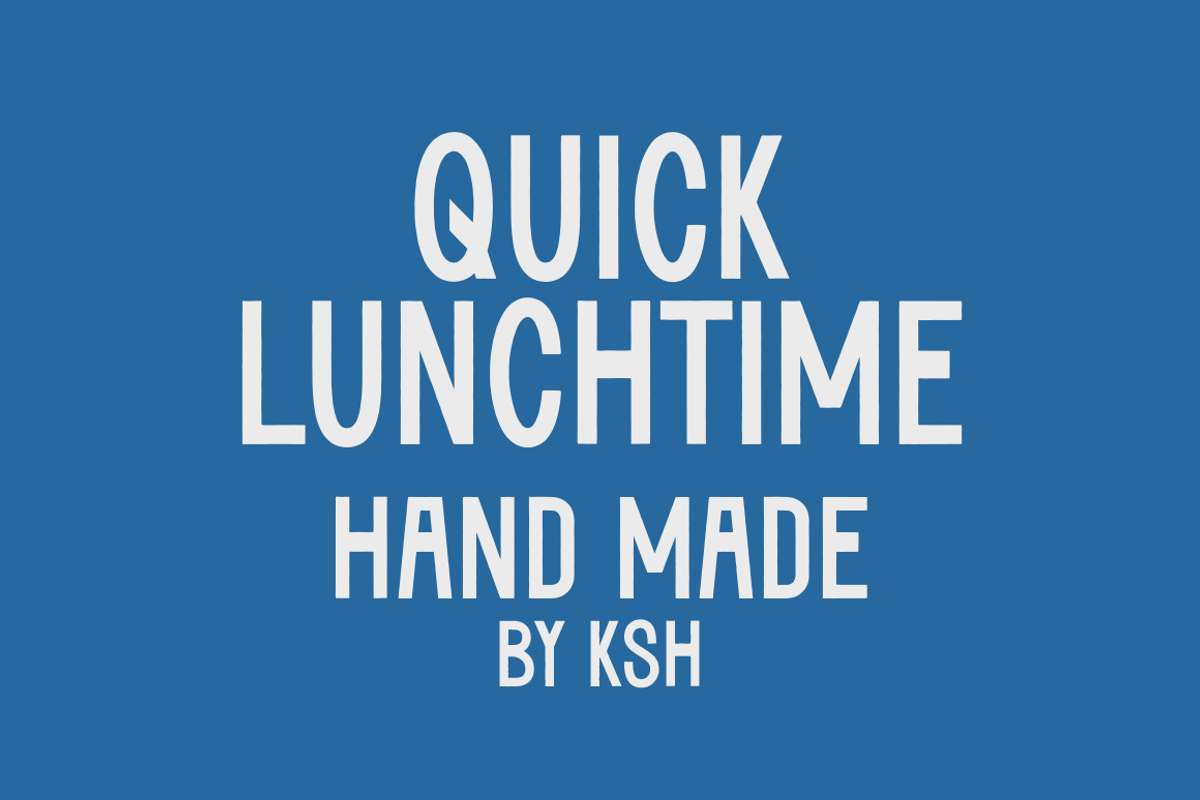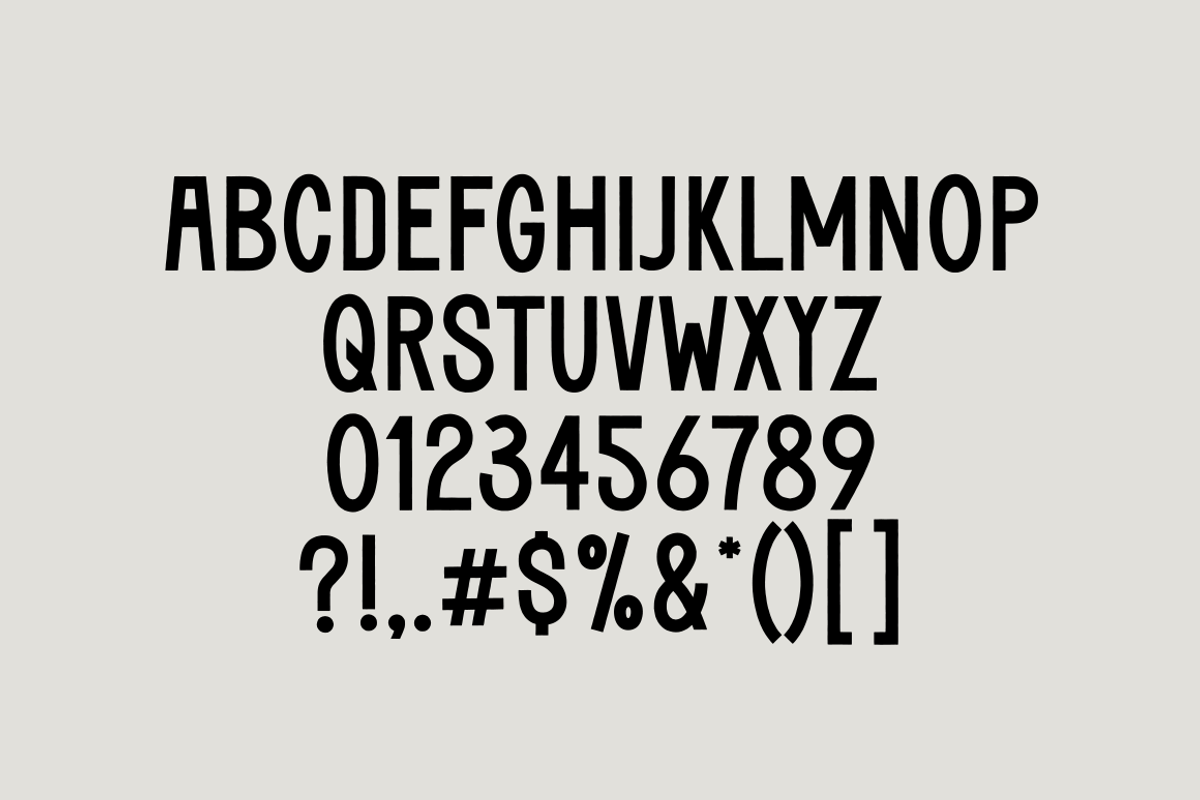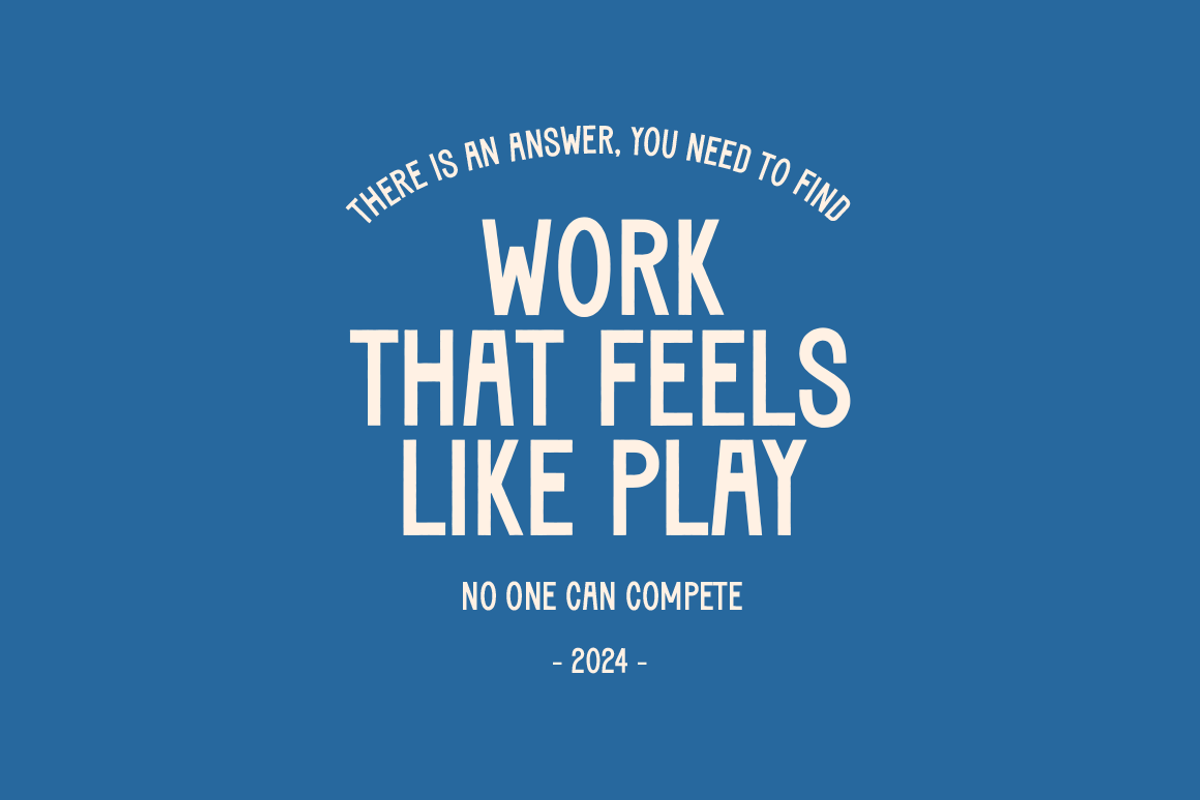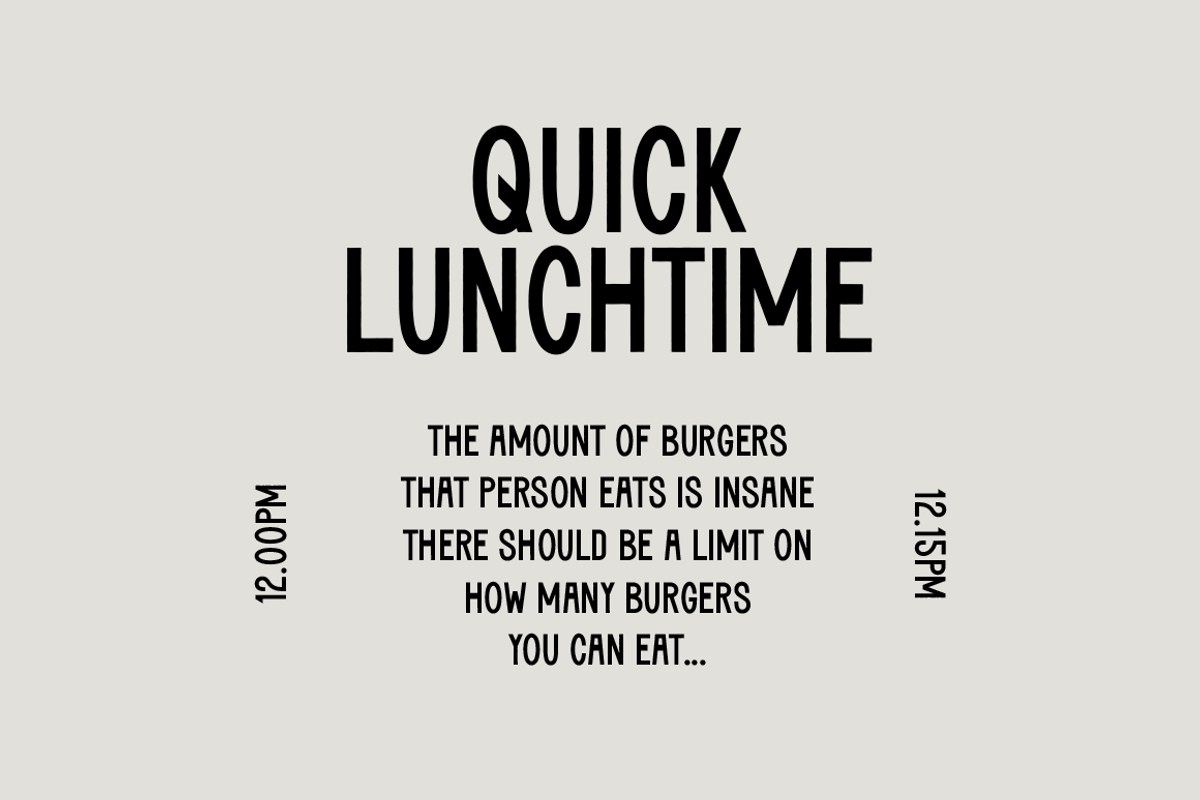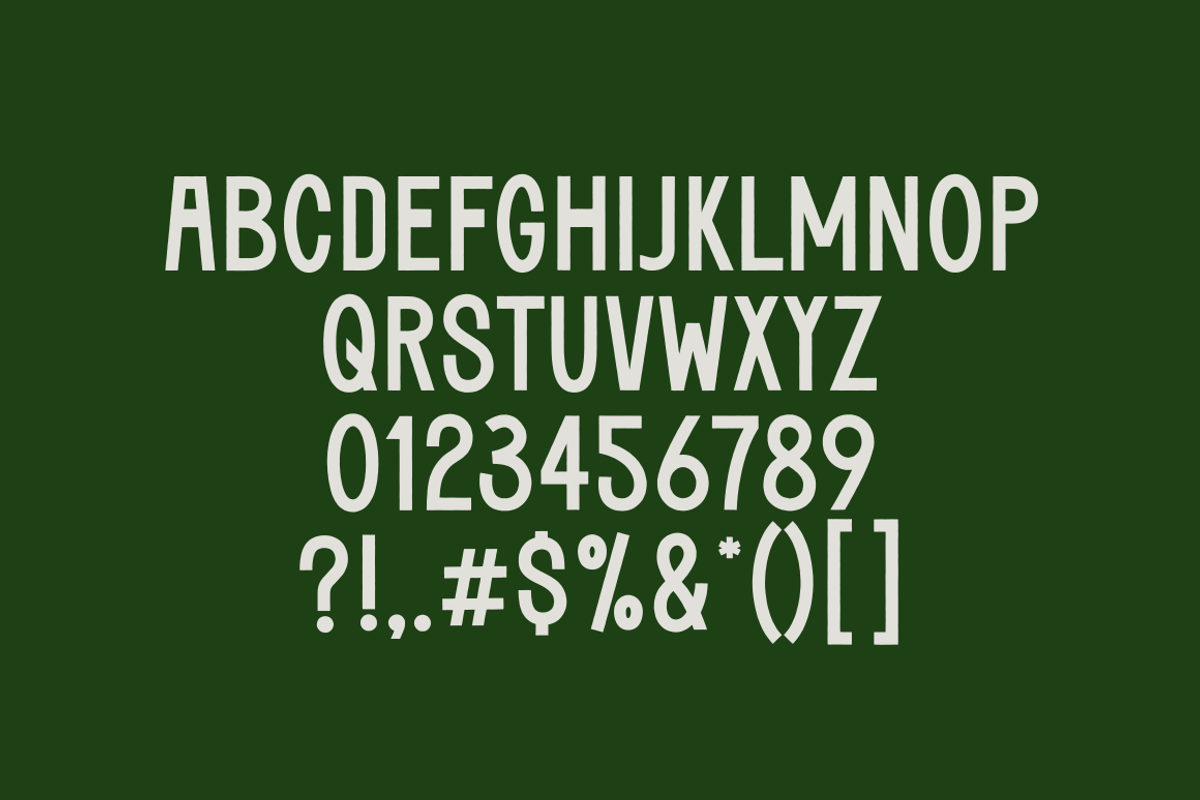
Quick Lunchtime
Quick Lunchtime is a hand-drawn tall font full of character and charm. Created during a work break, it brings a playful, personal touch to your designs. Its elongated, elegant letterforms are great for headlines, posters, branding, menus, social media graphics, and more. Perfect for food-inspired projects, café branding, and anything that needs a fresh, handcrafted vibe.
- Hand-drawn, authentic style
- Tall and stylish letterforms
- Perfect for creative projects, from digital to print